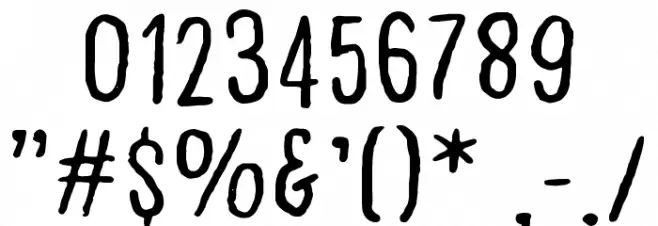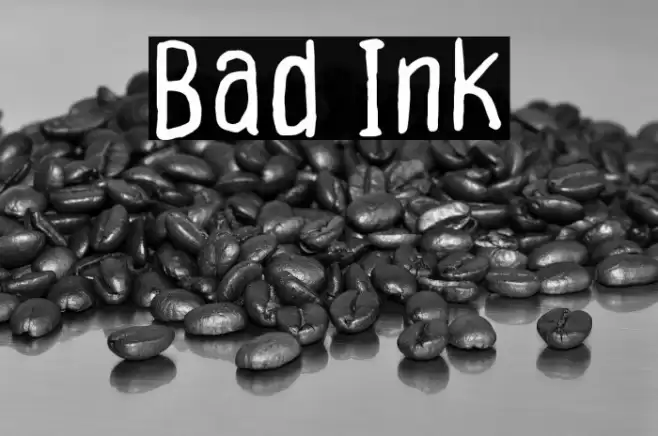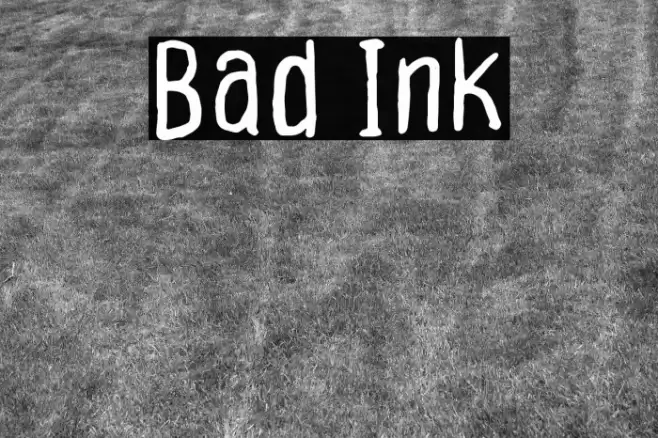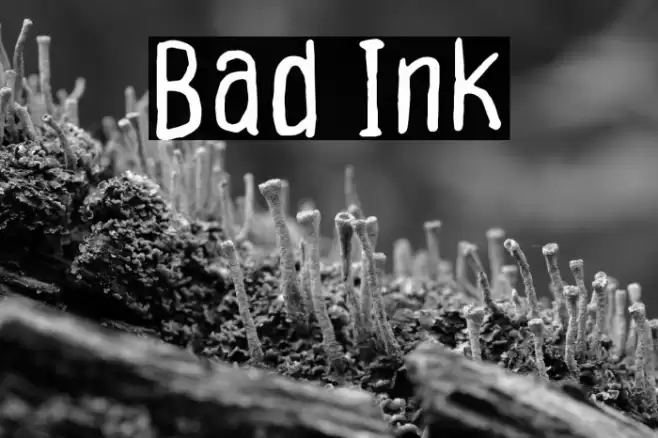
Bad Ink Font
A playful, handwritten style font with irregular, slightly whimsical characters.
| Overall Style | Casual, Playful, Informal |
| Use Case | Headlines, Body text, Invitations, Creative projects |